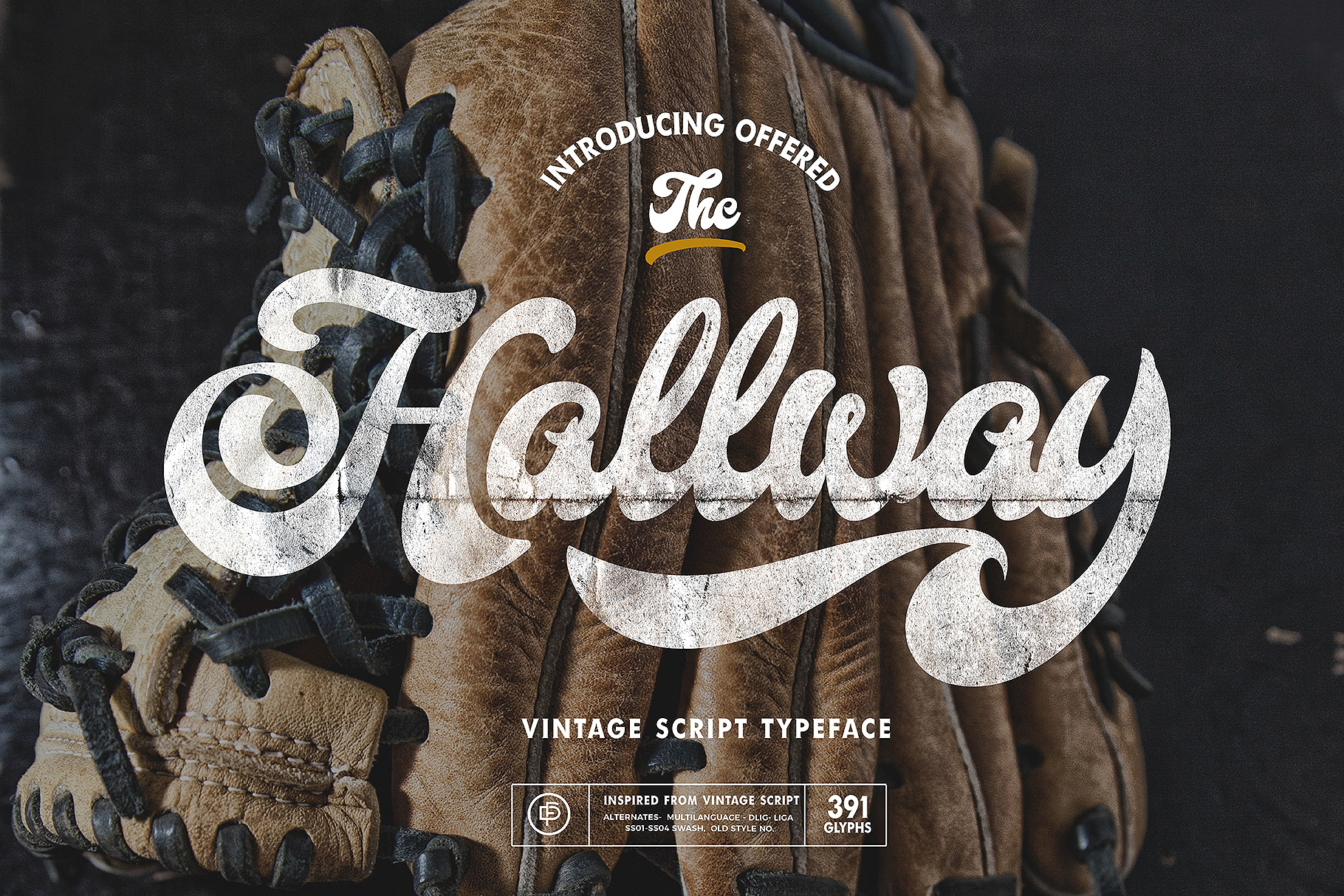
Hallway Typeface.
Hallway inspired from vintage script combined with modern style, suite for adventure or classic feeling sport, sign painting, labeling, suitable for logo, product names packages, labels, old fashioned coffee shops, bars and everything with specific characteristics of past times.
- Hallway Script
- Hallway Ornaments
- Stylistic alternates
- Dlig
- SS01-SS04